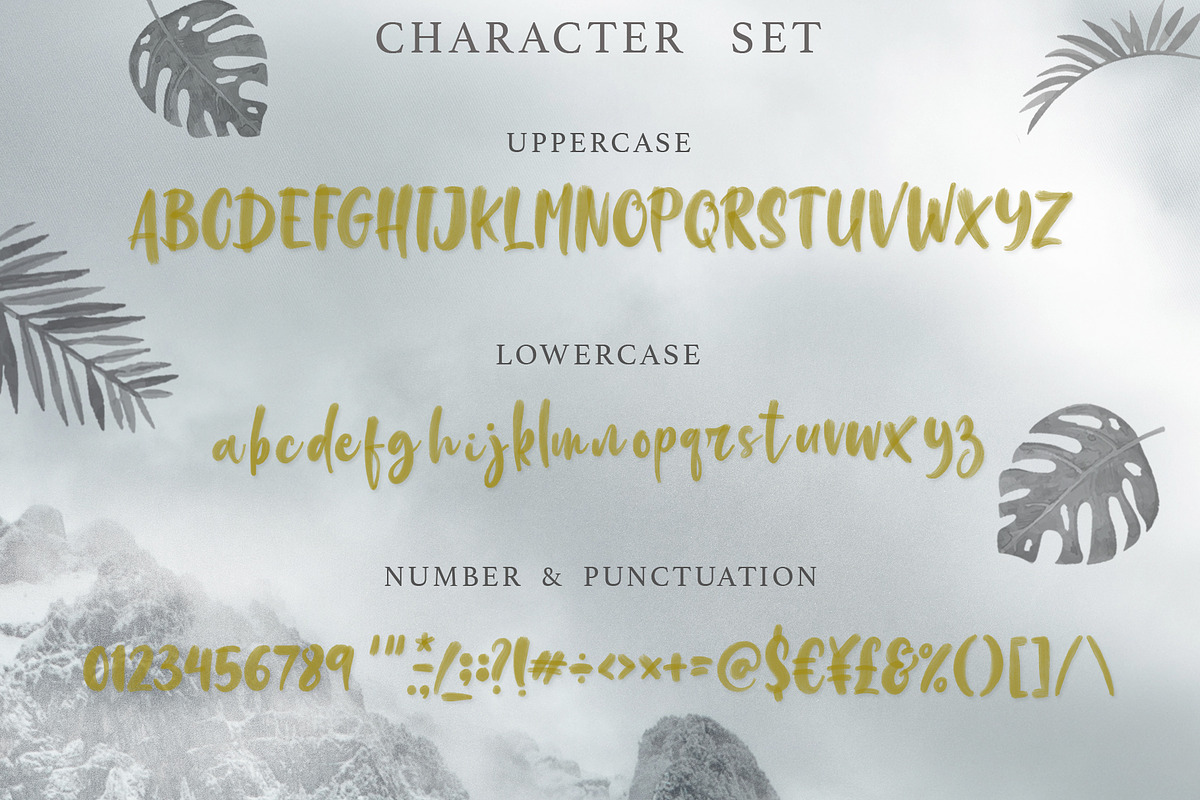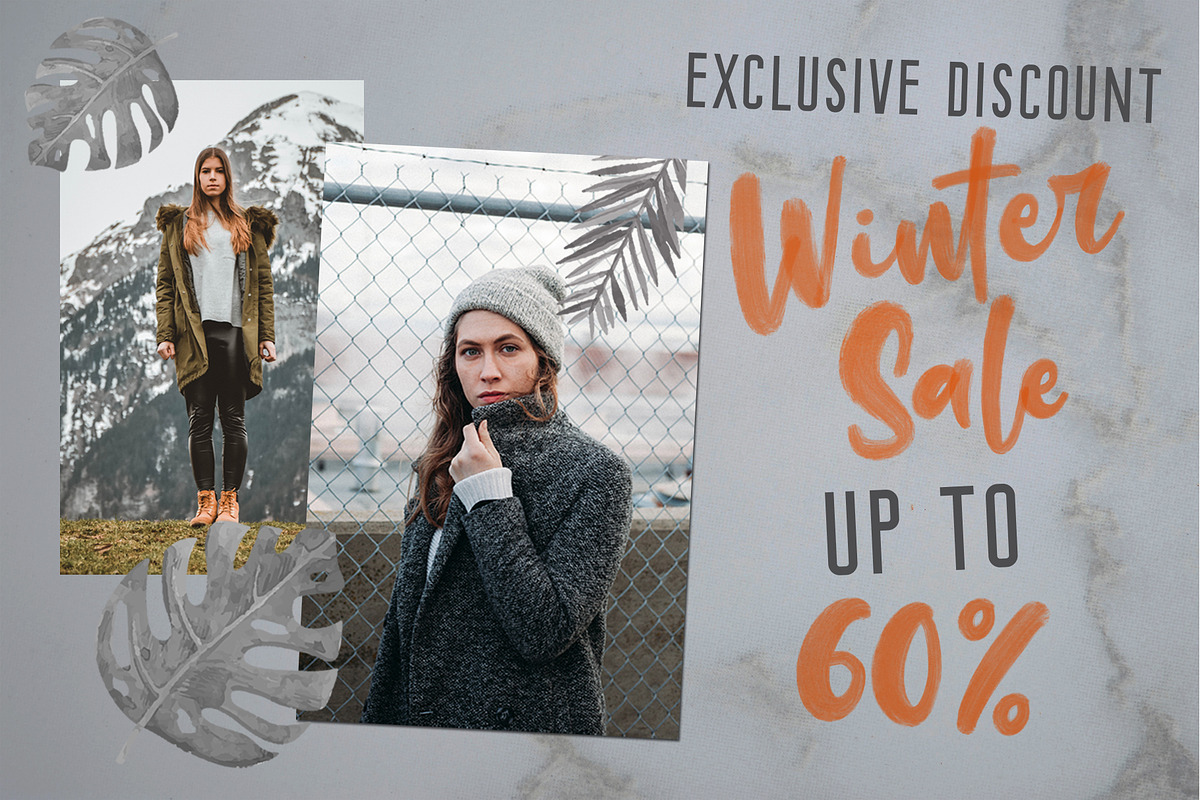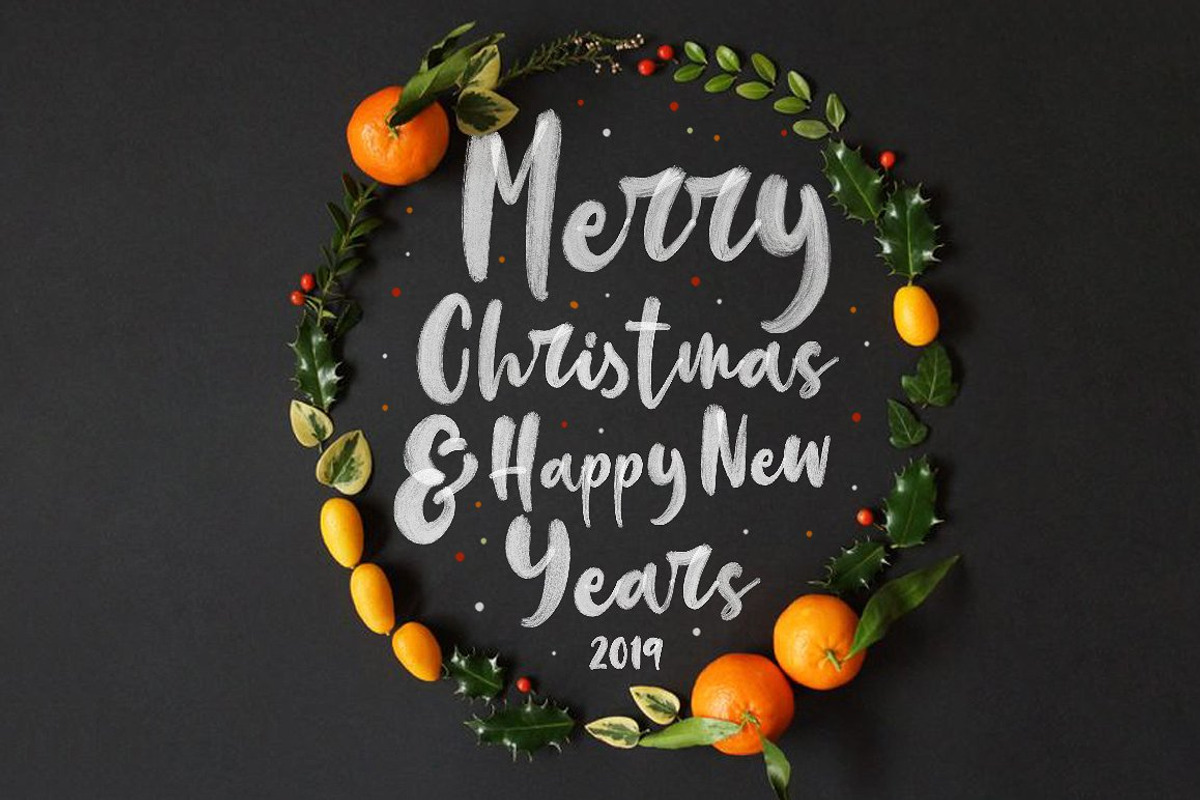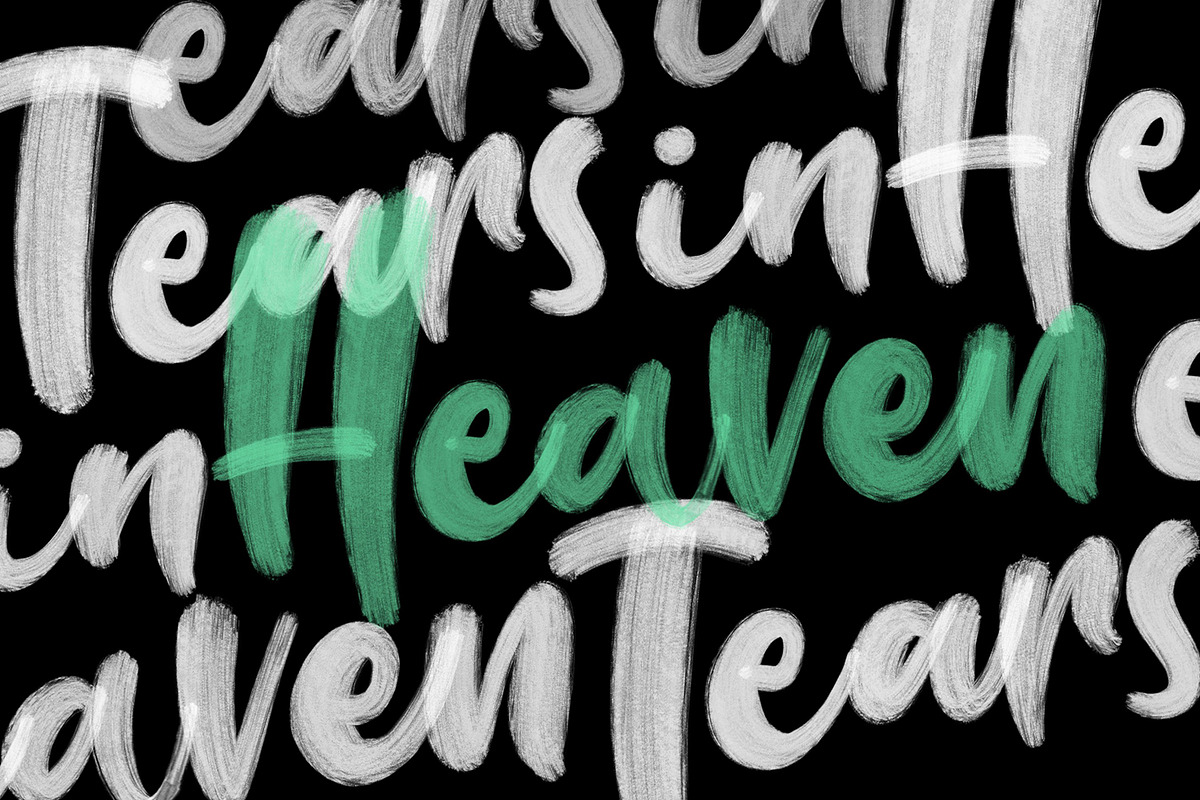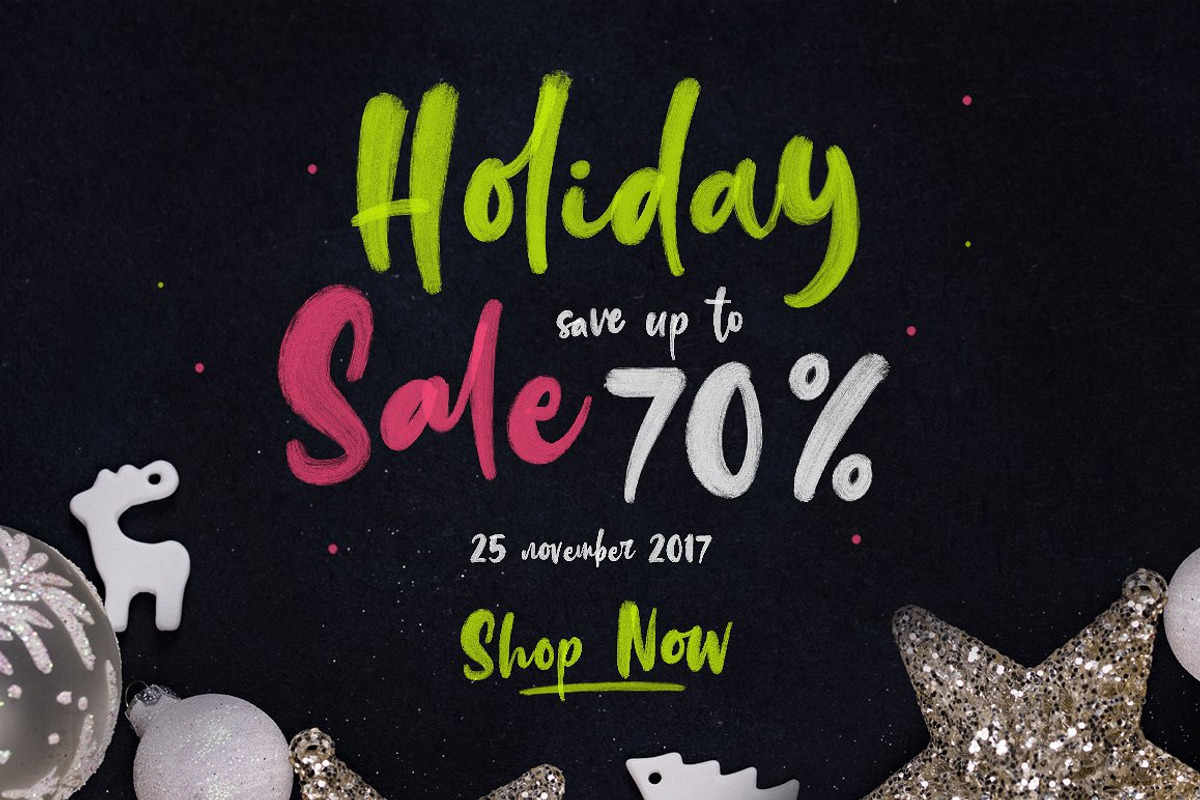
Lovattos SVG & Regular Font
Introducing Lovattos our latest signature font SVG.. Made with Brush element that make this font so Messy but have classy touch. Lovattos also comes with Ligatures and Stylistic Alternates that will make the signature font more real.Lovattos is very best choice fonts for : Wedding Invitation, branding, web content, quotes, Posters, Logos, Print Ads, Digital Ads, Promotion Product etc
Character set A-Z with special uppercase letters
Discretionary Ligatures
Lovattos SVG & Regular Font by Typenations fits naturally into Branding, posters, packaging, typography.